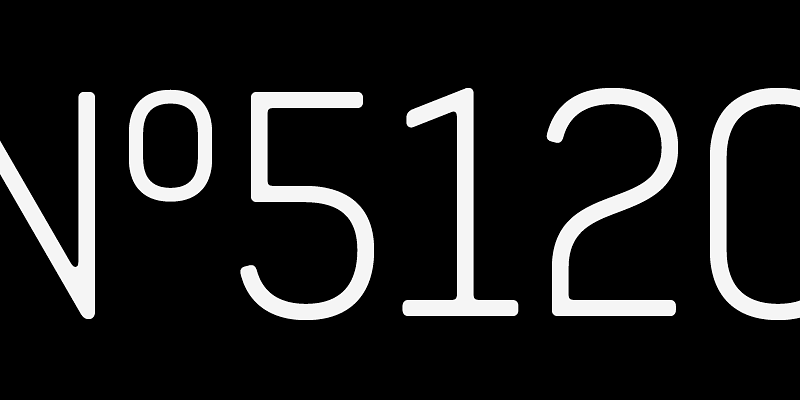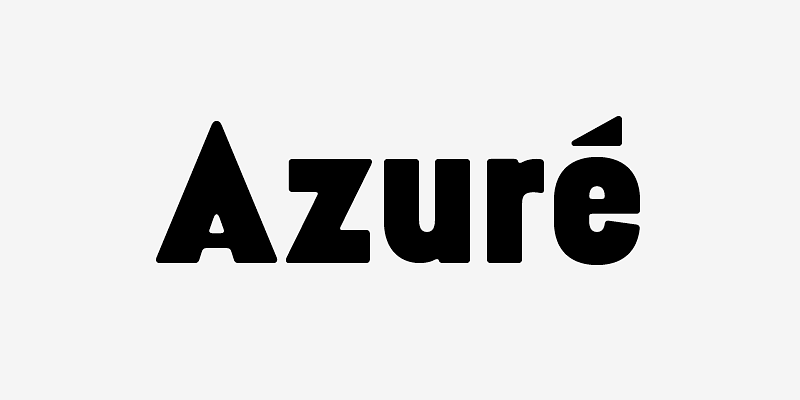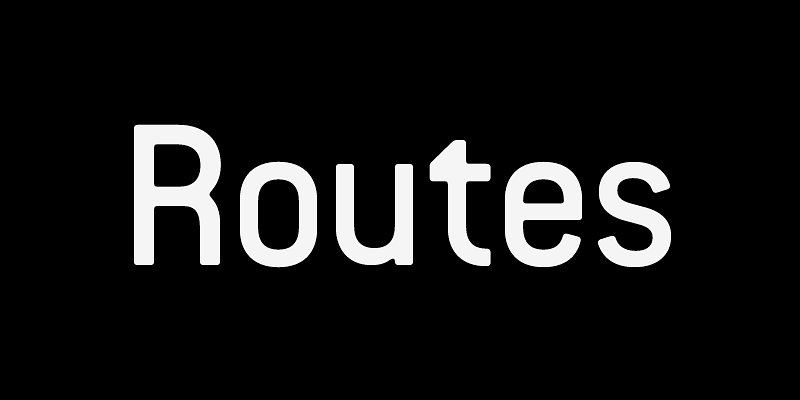
Zedou draws its inspiration from vintage Art Deco–influenced signage in Madagascar, a former French colony. Blending mechanical structure with organic character, it comes in four weights and supports Extended Latin. Zedou also offers advanced typographic features, including case-sensitive forms, fractions, and stylistic alternates.